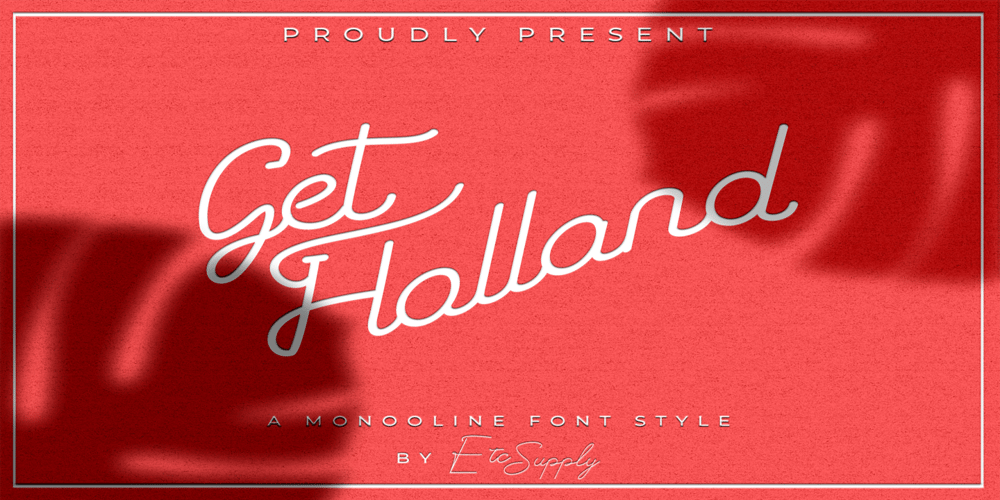
Get Holland
Get Holland font
Get Holland Font Family was designed by Ilham Nashrul Huda and published by Etcsupply. Get Holland contains 3 styles and family package options. Get Holland designed by Ilham Nashrul Huda & published by Etcsupply This item absolutely coolest font & recomended for branding, lettering, logo, advertising,t-shirt design , book & magazine cover, Photograpy logo, Poster etc. Easy add that element to just about any project where a special touch of class is required.Get Holland Features: Get Holland Regular Get Holland Extras Get Holland Swash